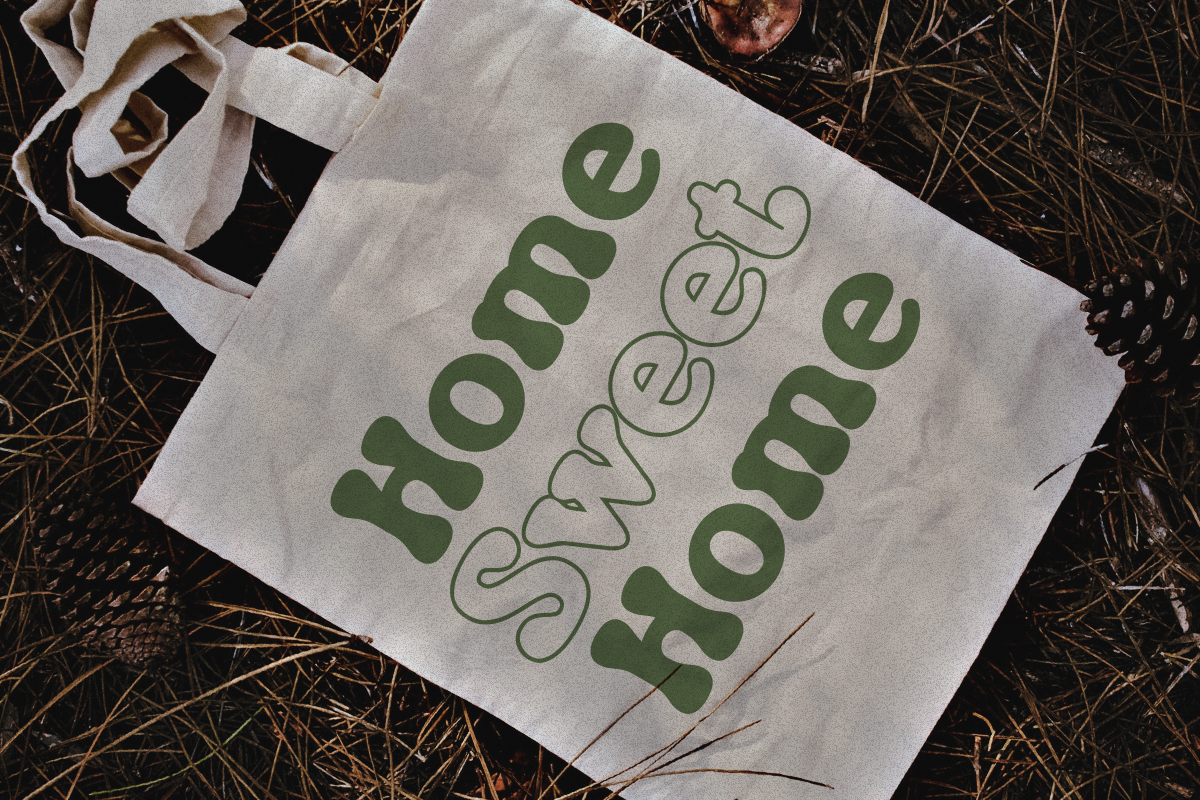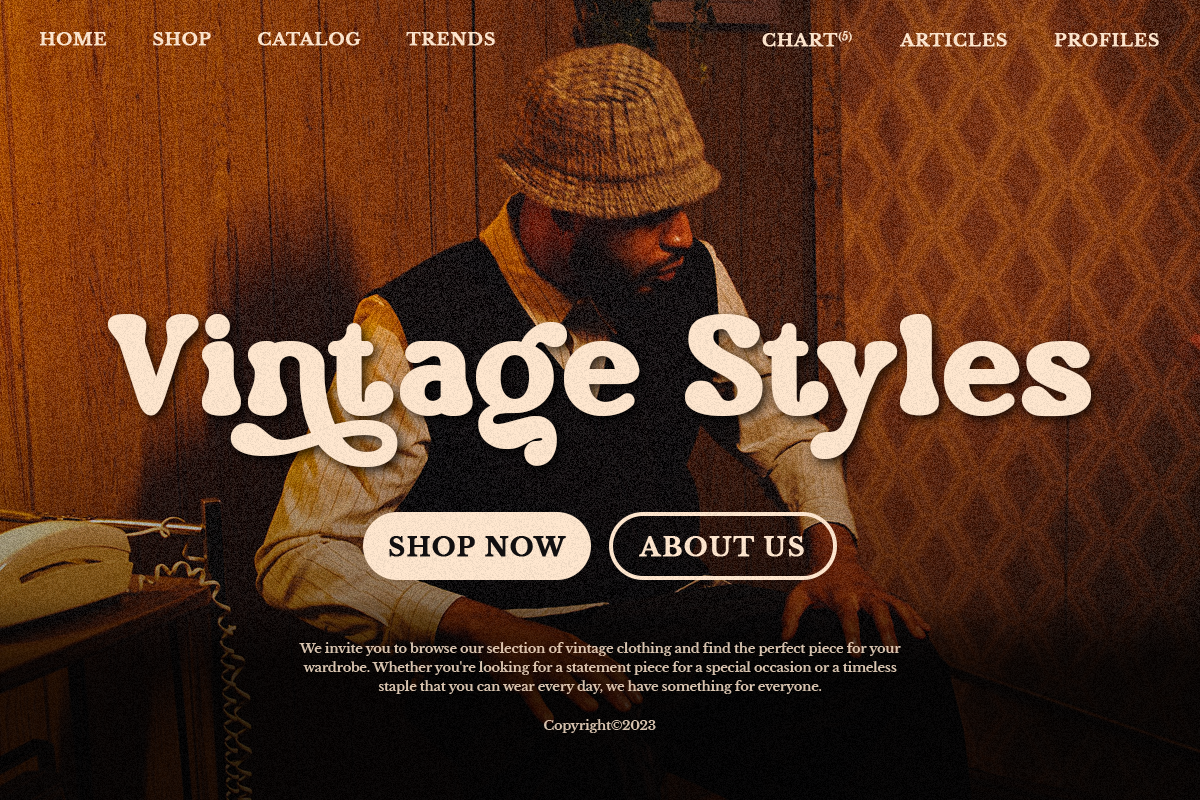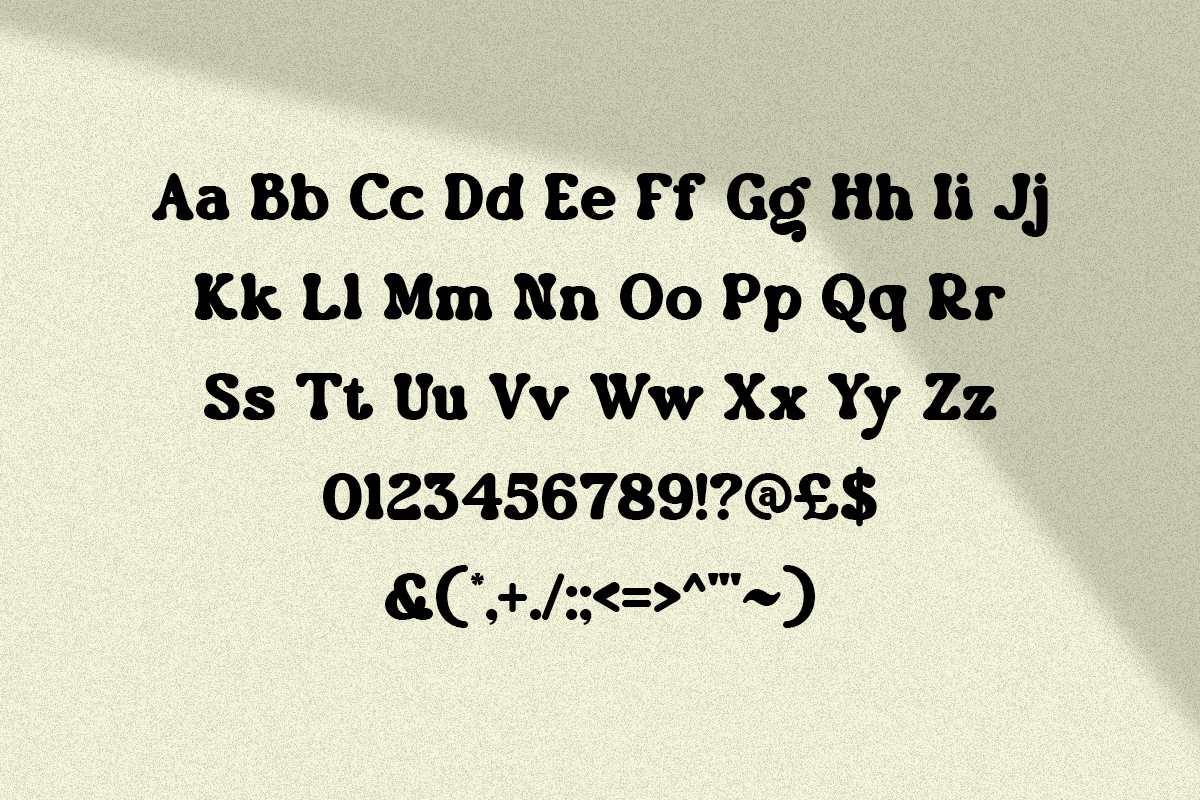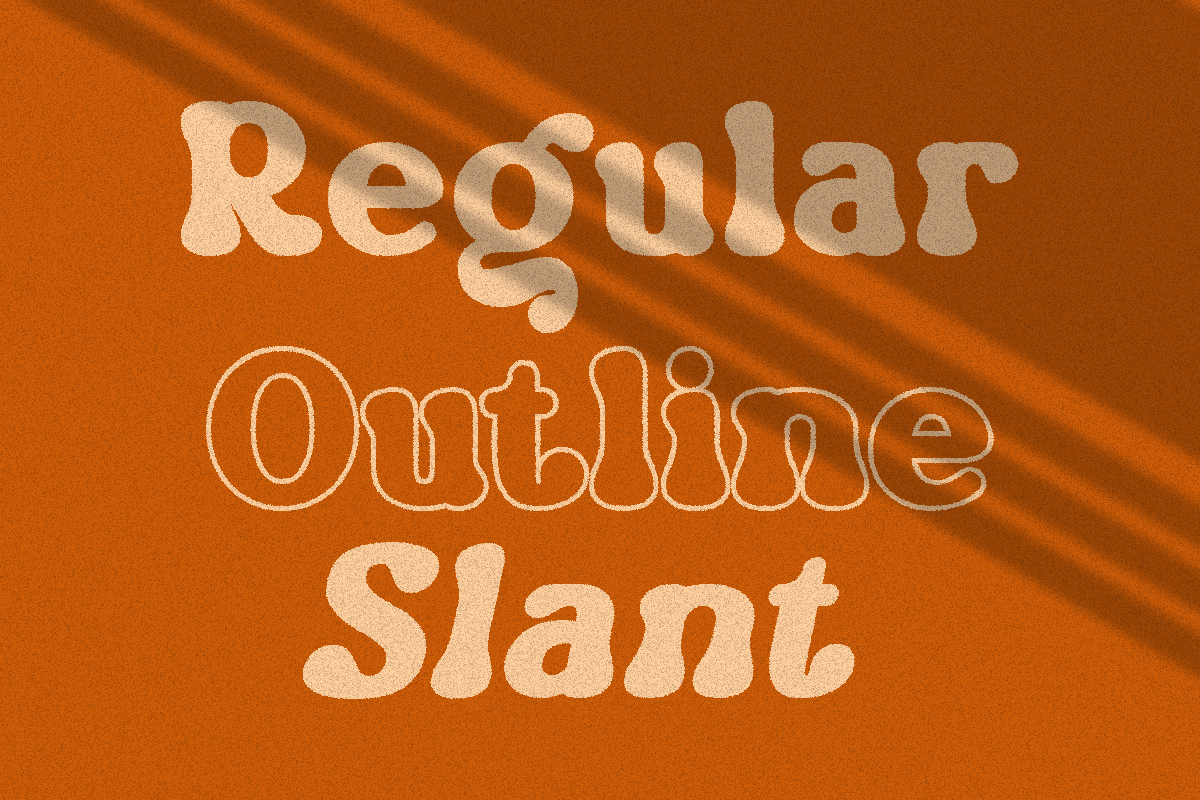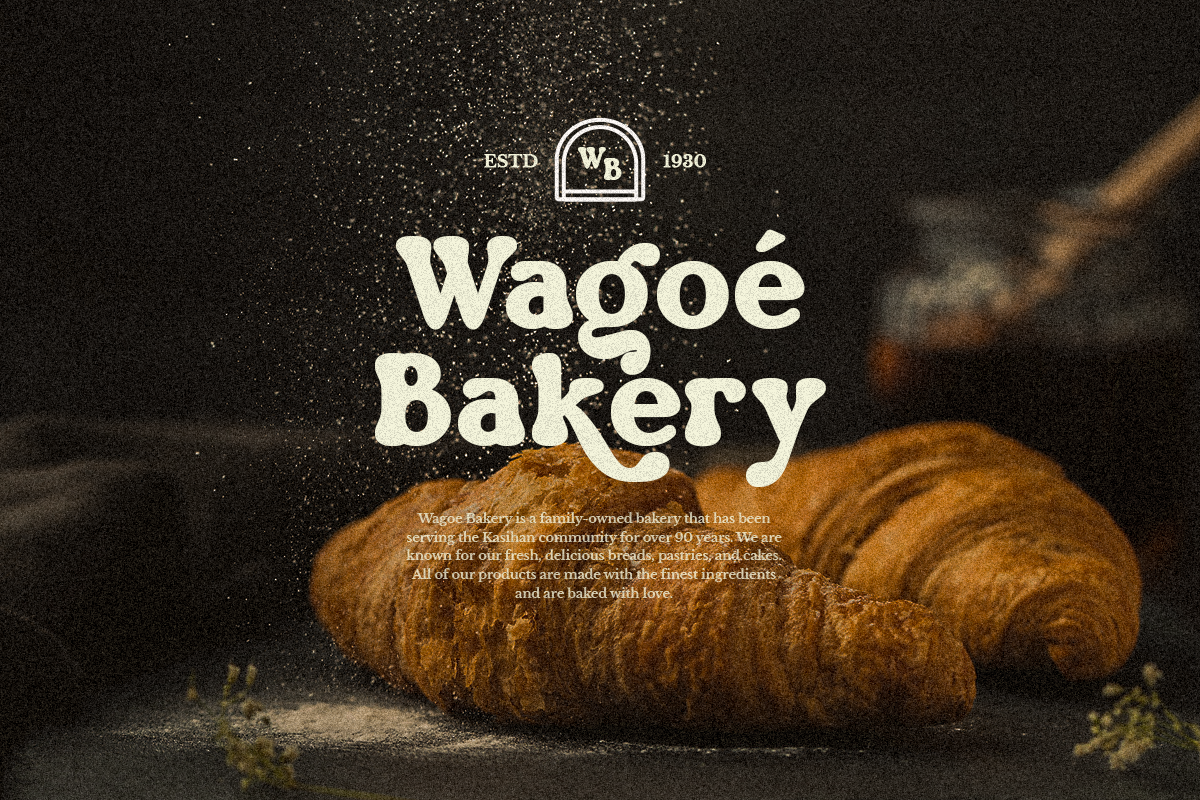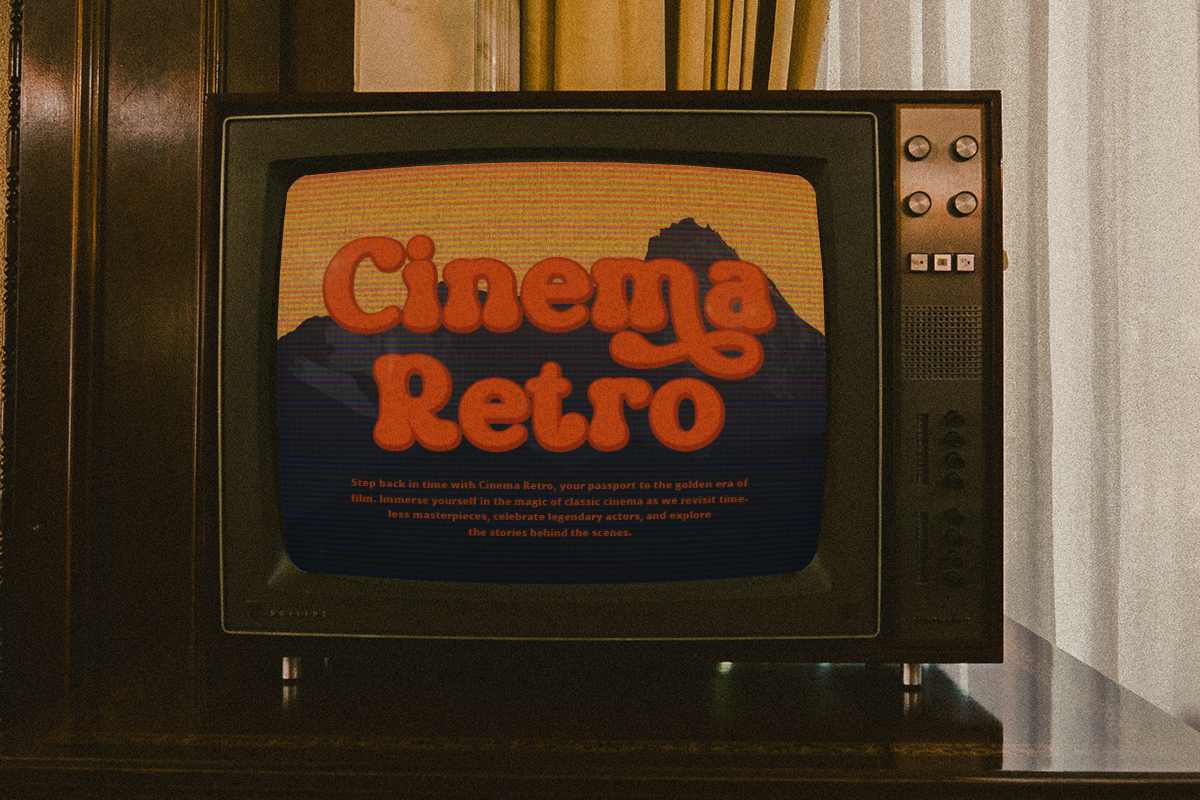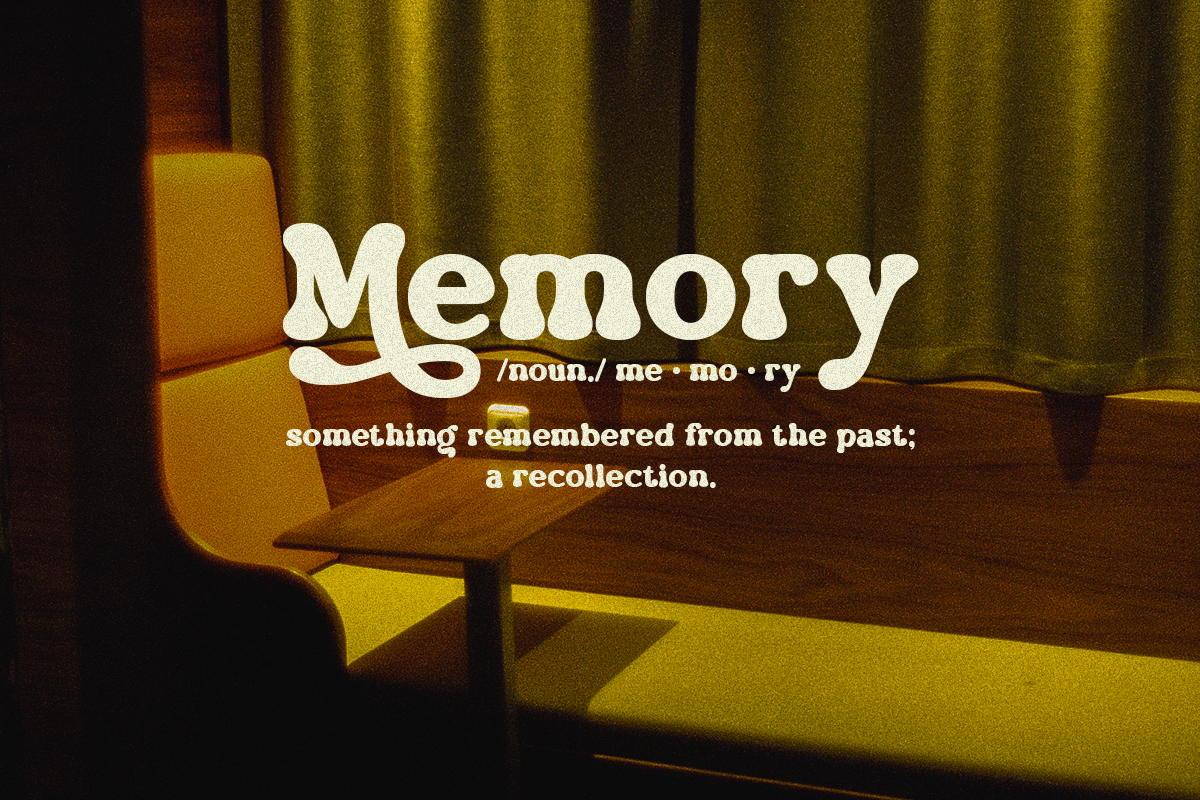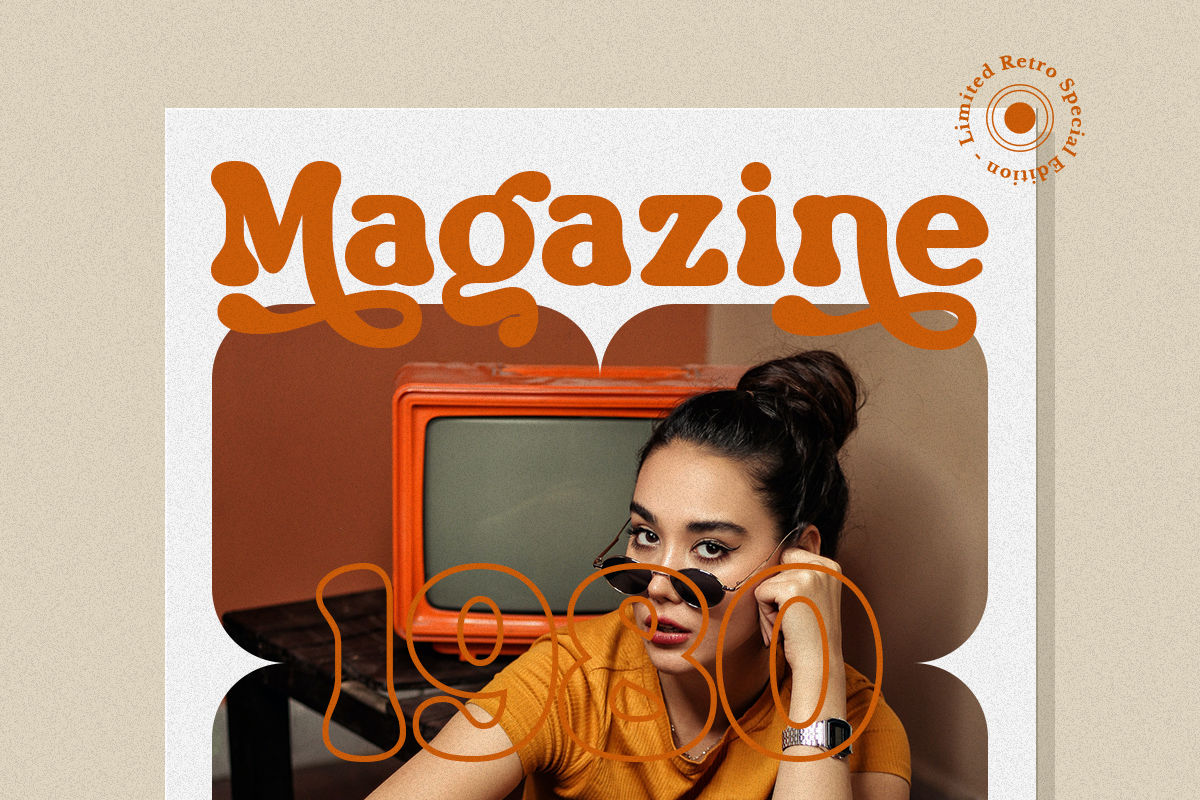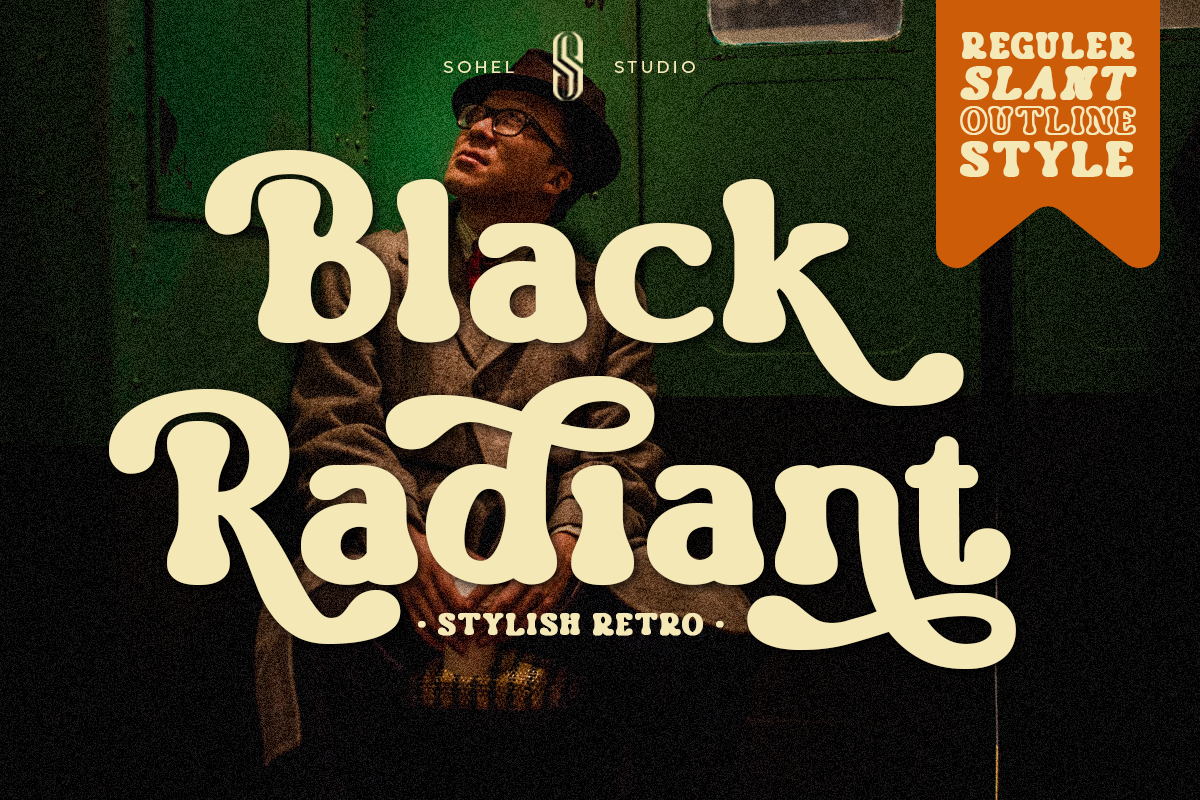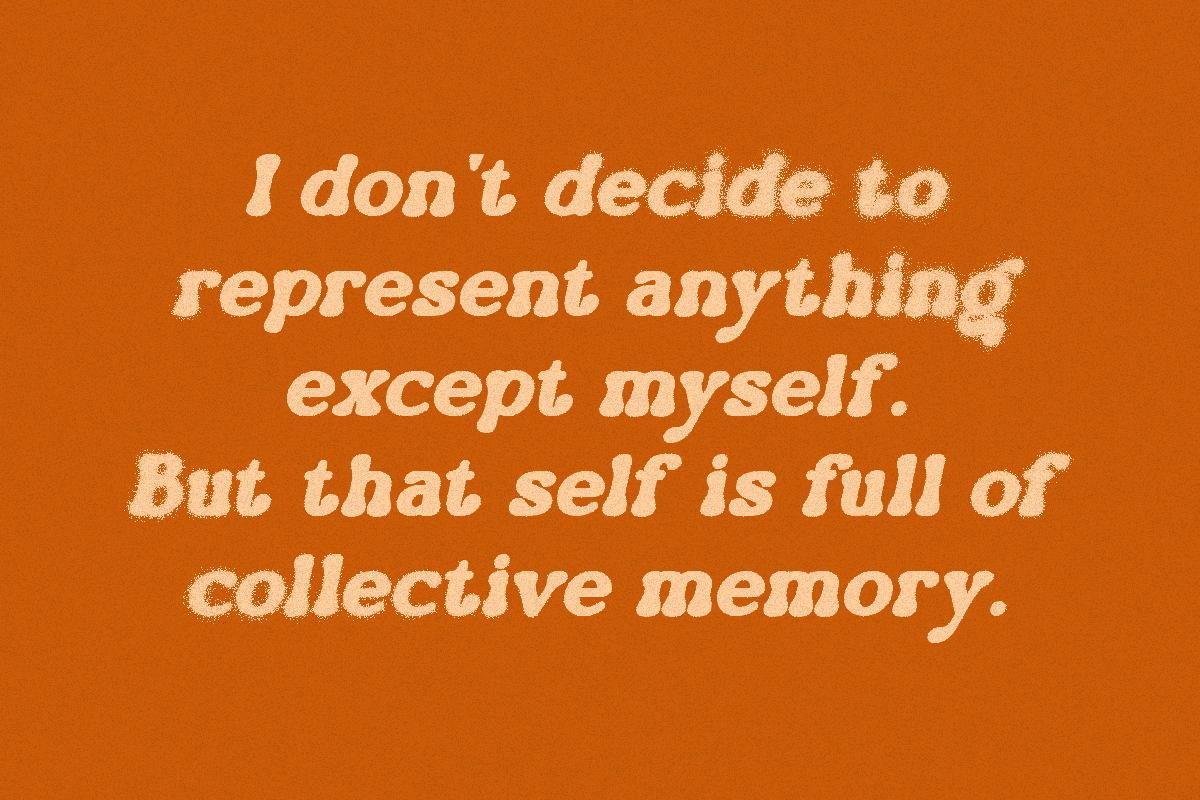
Black Radiant - Retro Header Font
Black Radiant is a retro display serif font that exudes a classic charm and bold character. With its design inspired by retro styles, this font brings an elegant touch and evokes a sense of the past.Each letter is meticulously crafted with careful attention to detail and proportion, resulting in a visually appealing and unique appearance.
Black Radiant is perfect for projects that require a vintage feel, such as posters, logos, packaging, and promotional materials that aim to capture a nostalgic and sophisticated atmosphere. This font will add a special touch to your designs and captivate viewers with its retro allure and distinctiveness.
Black Radiant Features:
- (Regular, Slant And Outline)
- Uppercase And Lowercase
- Alternates And Ligatures